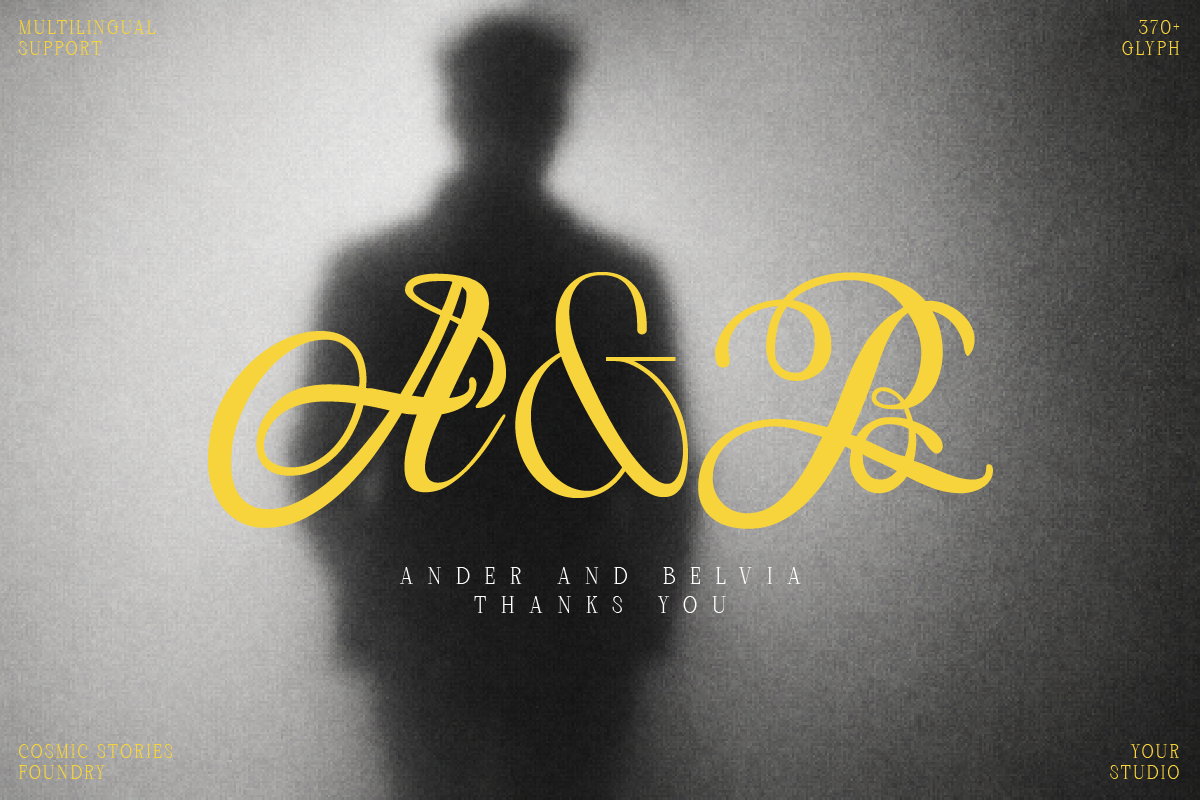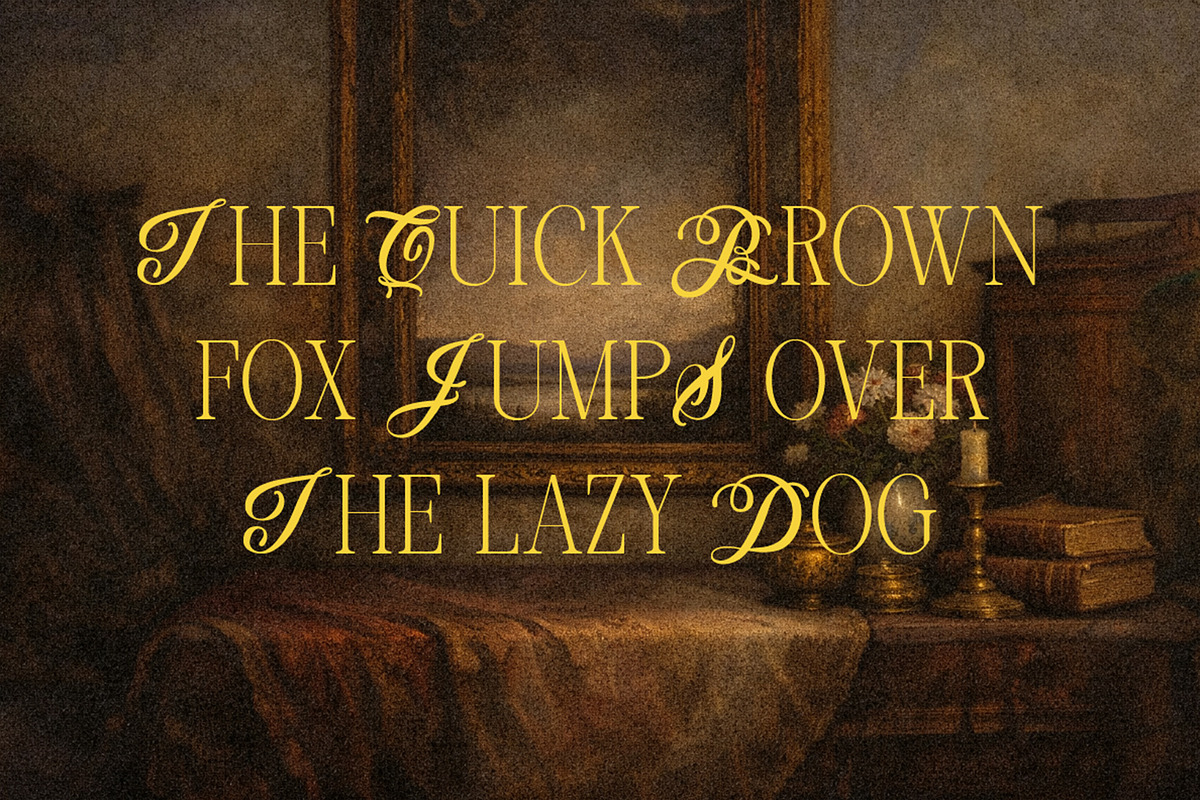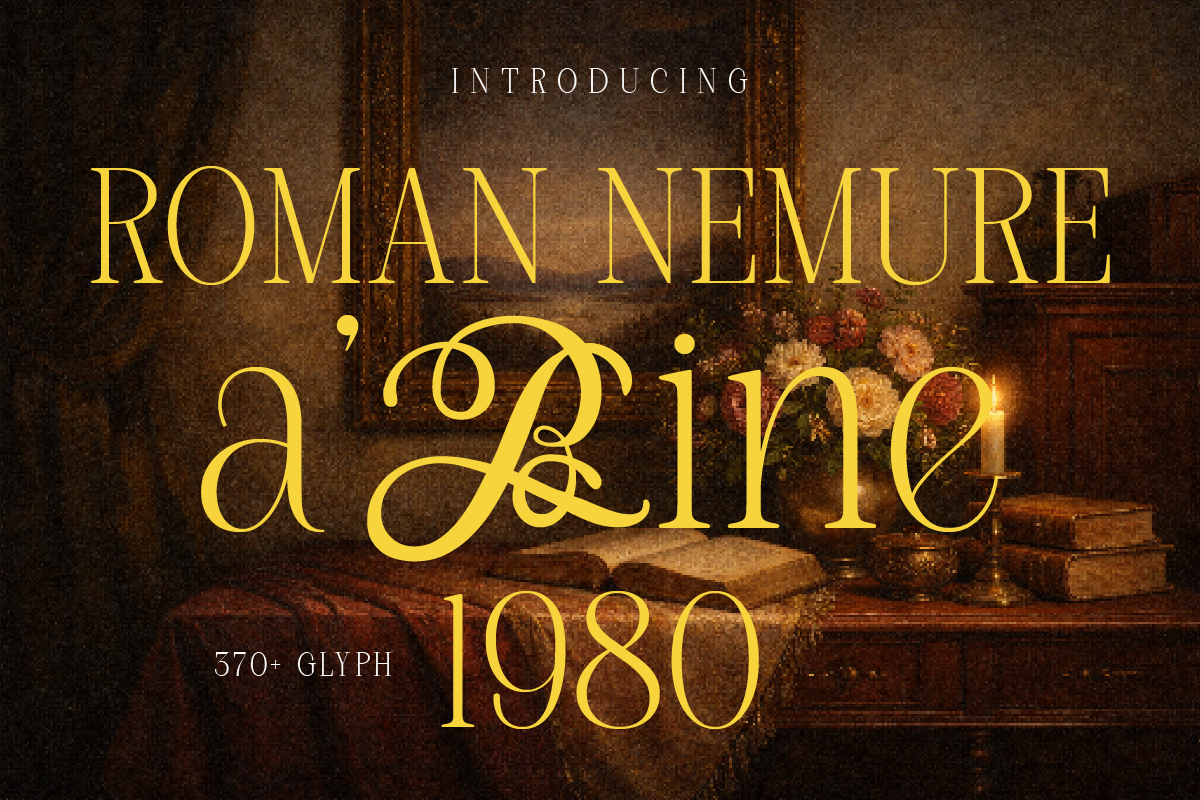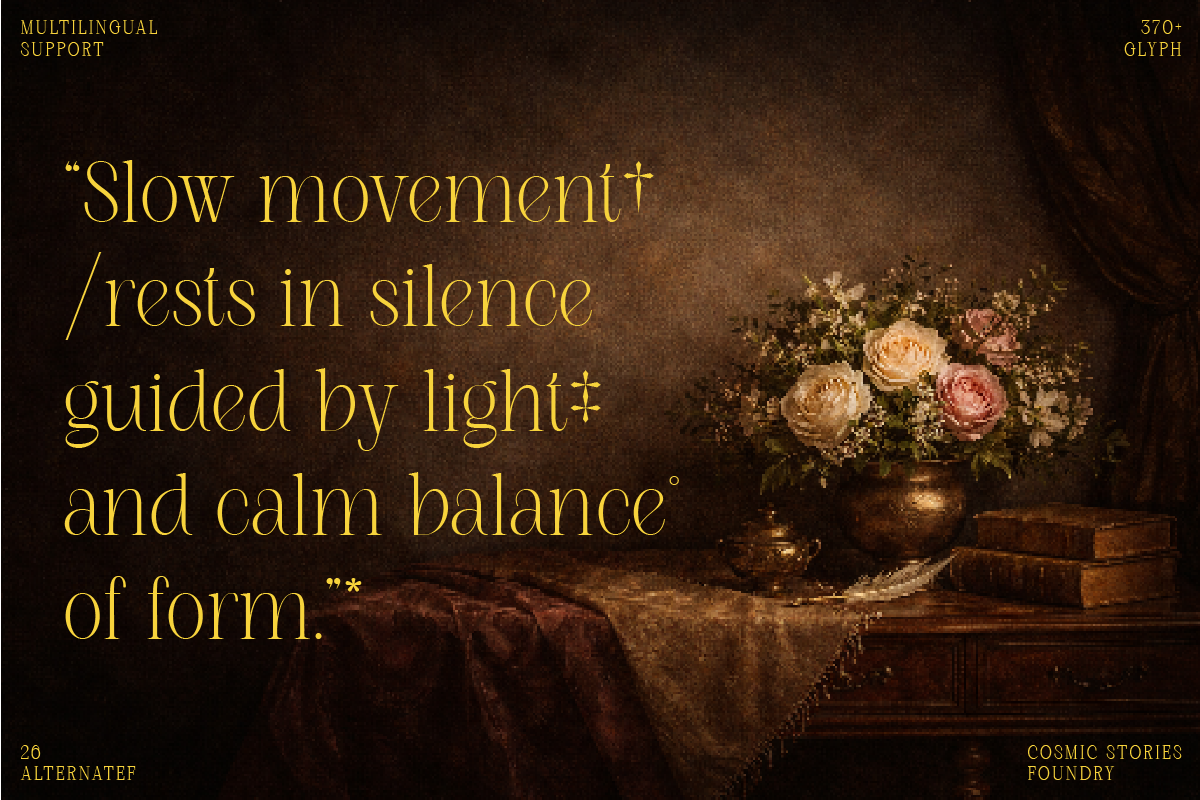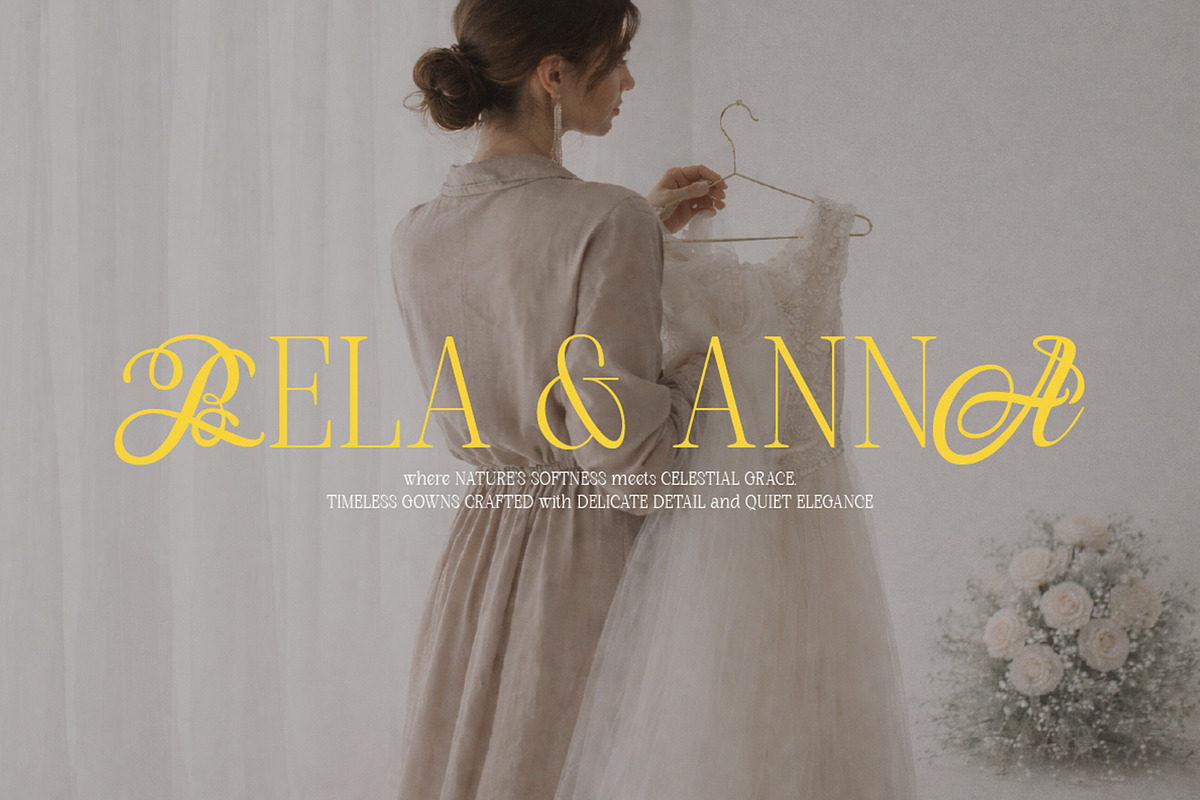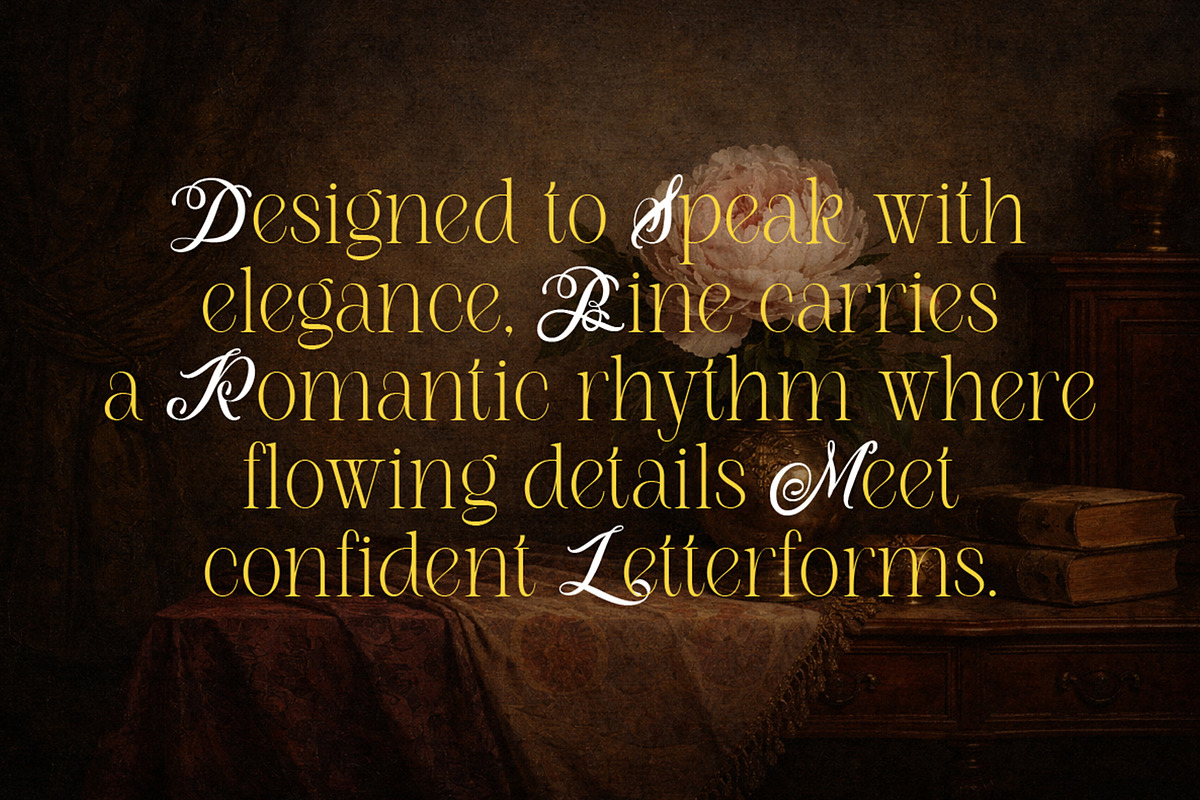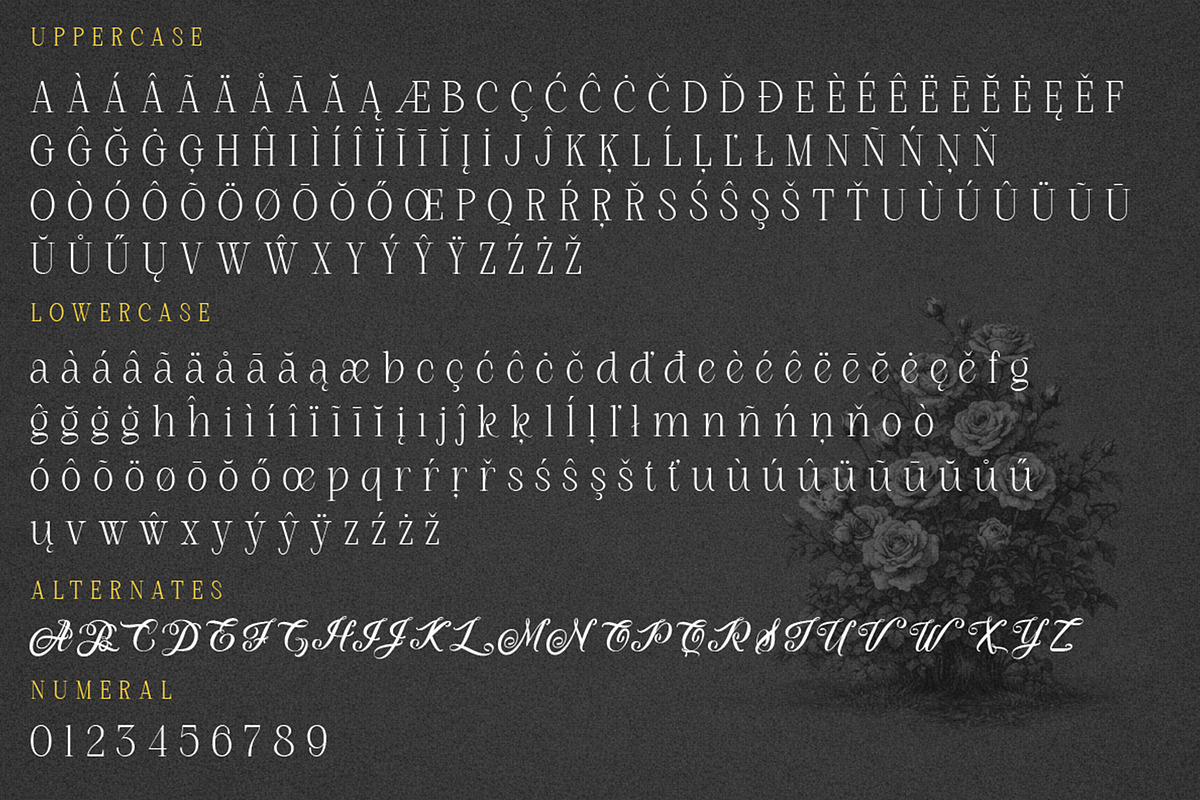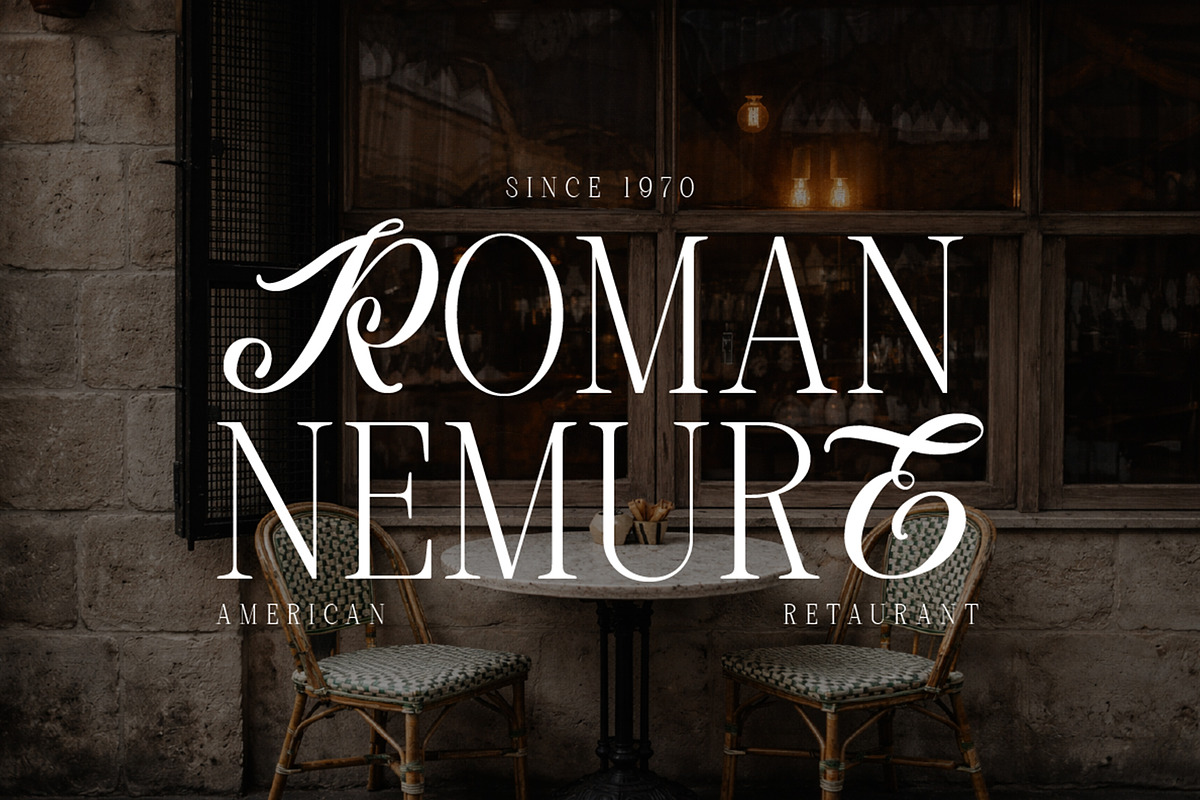
Roman Nemure - Romance Serif Font
## Roman Nemure – A Refined 1980s Romance Serif
Roman Nemure is an elegant serif font that blends classic elegance with a touch of 80s romance. Its characters are bold yet graceful, with gently flowing swashes and ligature details—creating a luxurious, artistic, and timeless look all in one.
This font evokes a classic editorial aura, reminiscent of vintage novel covers and theater posters, as well as sophisticated premium branding.
### ✨ Character & Feel
- Classic serif with elegant stroke contrast
- Dramatic alternate decorative characters (swash)
- Impression: romantic, vintage, luxurious, artistic
- Inspired by editorial typography and 1980s-era design
### 🔠 Key Features
- 370+ glyphs
- Complete uppercase & lowercase letters
- Exclusive ligatures
- Alternates & swash characters
### 🎯 Suitable For
Premium logos & branding
Book covers / romance novels
Vintage aesthetic posters
Wedding invitations
Fashion editorials
Luxury product packaging
Classic-themed social media content